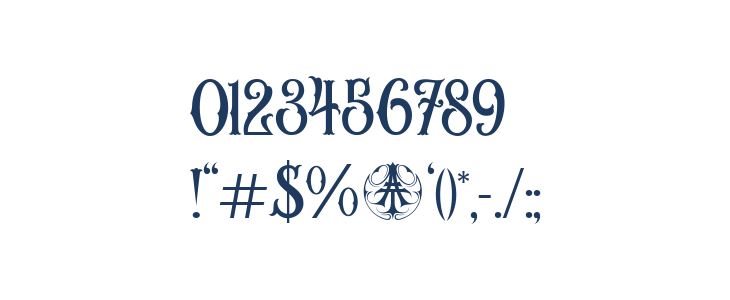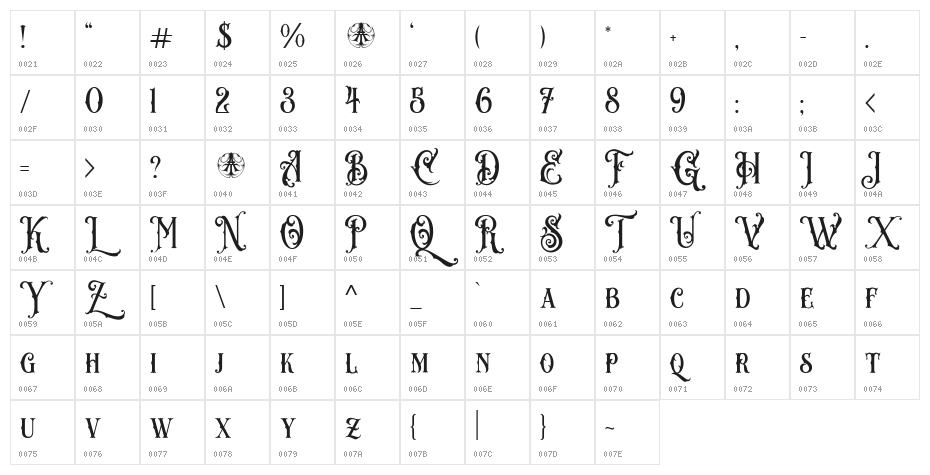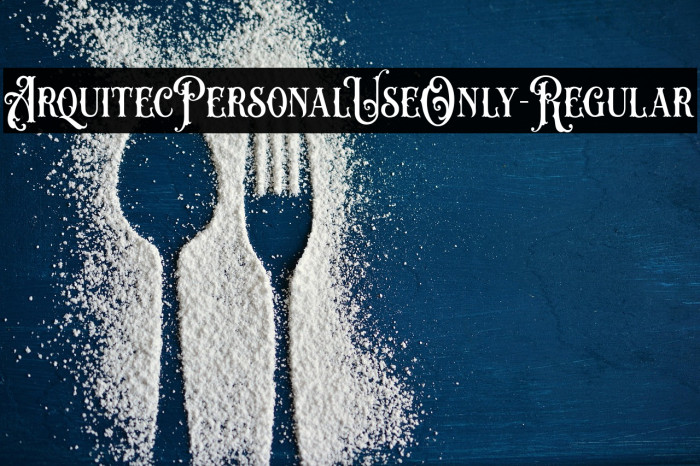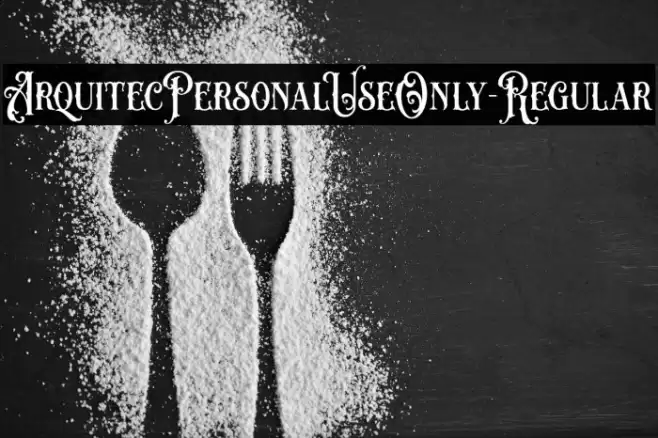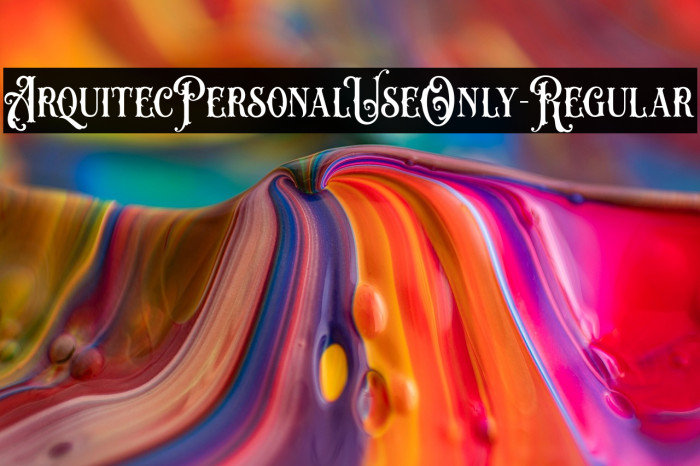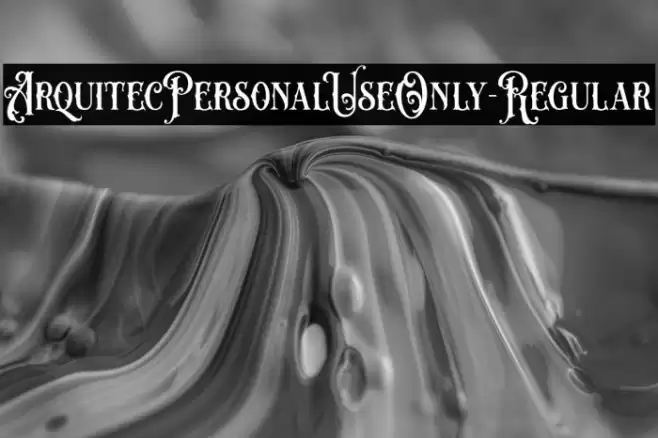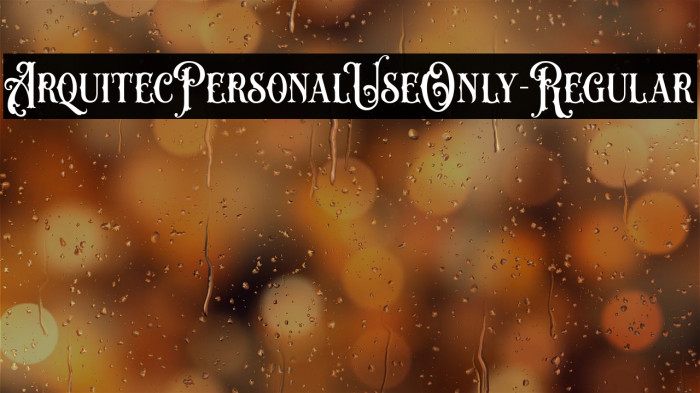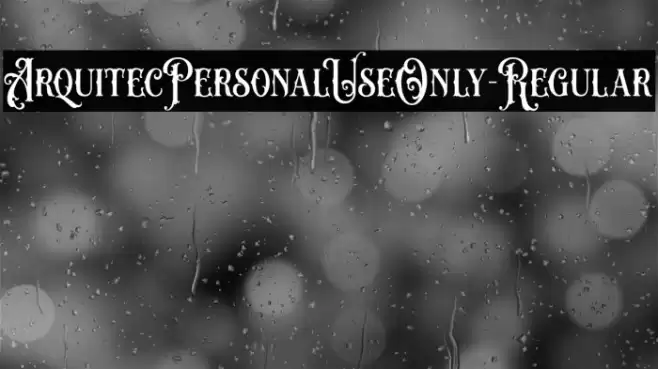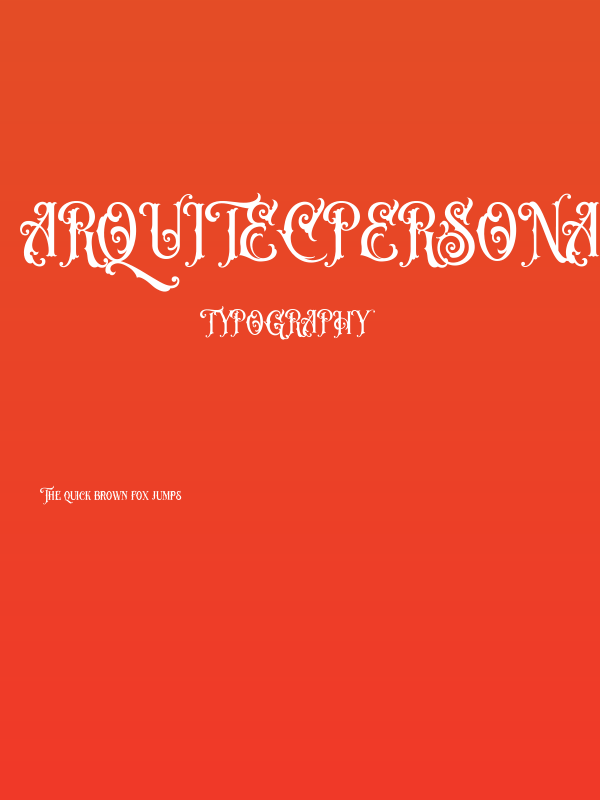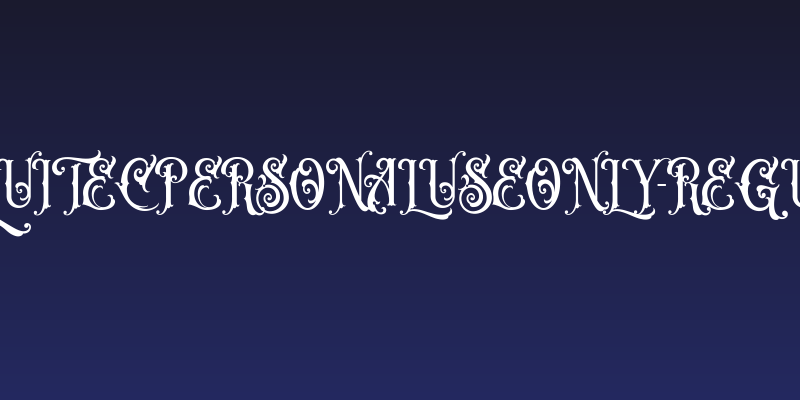
ArquitecPersonalUseOnly-Regular Font
ArquitecPersonalUseOnly-Regular Description
This font features an ornate and decorative style with intricate swirls and embellishments that give it a distinct, artistic flair. The uppercase letters are particularly elaborate, with flourishes that extend beyond the basic letterforms, creating a sense of elegance and sophistication. The lowercase letters maintain a similar decorative quality, though slightly more restrained, ensuring readability. The numerals and special characters are consistent with the overall ornate theme, making them suitable for creative and artistic projects. This font is ideal for designs that require a touch of vintage charm and artistic expression.
| Overall Style | Vintage, Decorative |
| Use Case | Headlines, Logos, Artistic projects |
| Proposed Projects | Ideal for wedding invitations, vintage-themed posters, artistic branding, and decorative signage. |